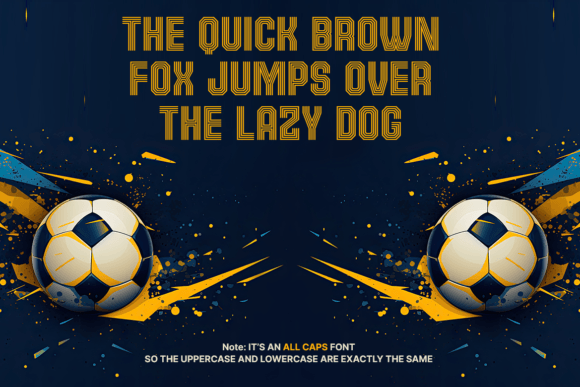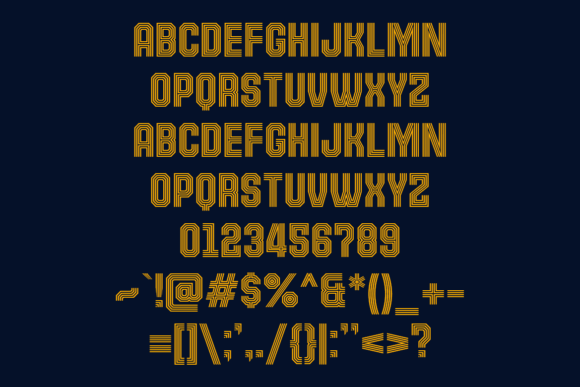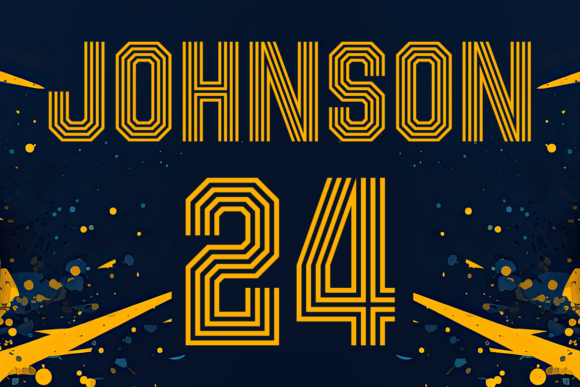
Introduction to Jerzen Font
Get ready to elevate your designs with Jerzen – the ultimate bold font that channels the energy and style of today’s sports jersey trends.
Inspired by the dynamic world of athletic fashion, Jerzen brings a powerful, modern edge to your projects Whether you’re designing jerseys, creating visuals for sports events, or just looking to make a statement, this font is your perfect match.
Key Features of Jerzen Font
Why Choose Jerzen Font?
Jerzen Font offers exceptional quality and versatility, making it a valuable addition to your design toolkit. Whether you’re creating for personal projects or commercial use, Jerzen Font delivers professional results.